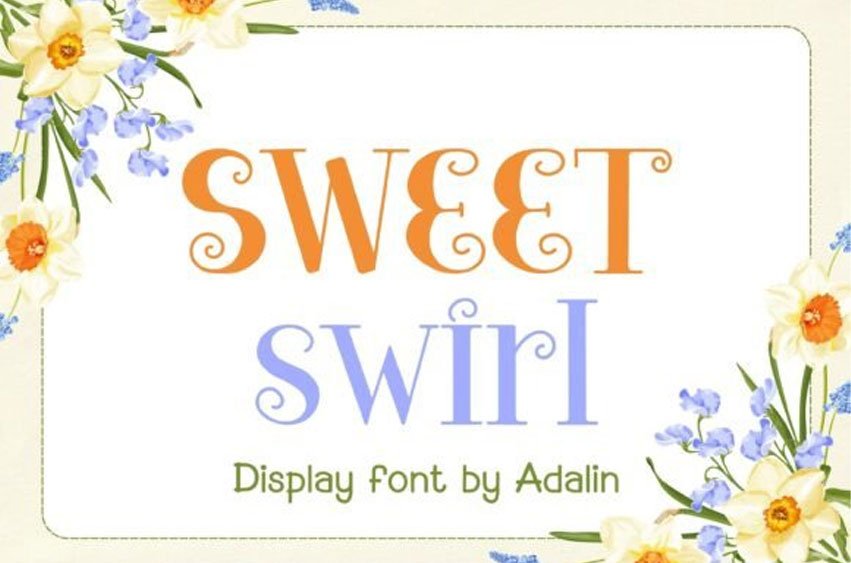
Sweet Swirl Font
Sweet Swirl Font Infuse your designs with a sense of playful magic and organic charm with Sweet Swirl, a captivating display font. Its unique personality comes from the harmonious blend of structured letterforms and delicate, spiraling flourishes, making every word look like a boutique-style creation.
Ideal for florists, bakeries, handmade jewelry brands, and artisanal skincare labels. Perfect for whimsical wedding invitations, birthday cards, and “thank you” notes with a personal touch.
Whether you’re designing for a boutique shop or a celebratory event, this font delivers a professional, storybook presence.